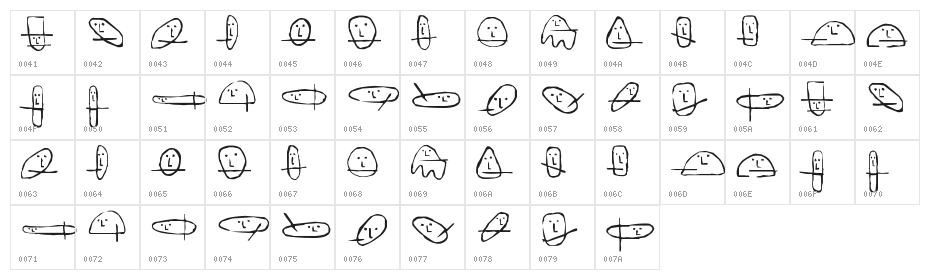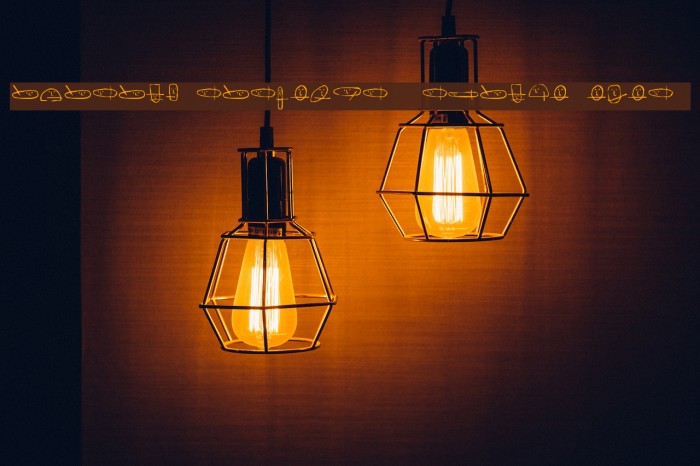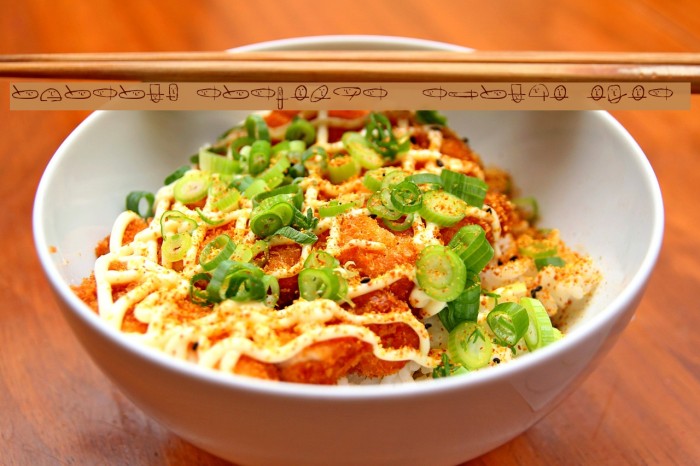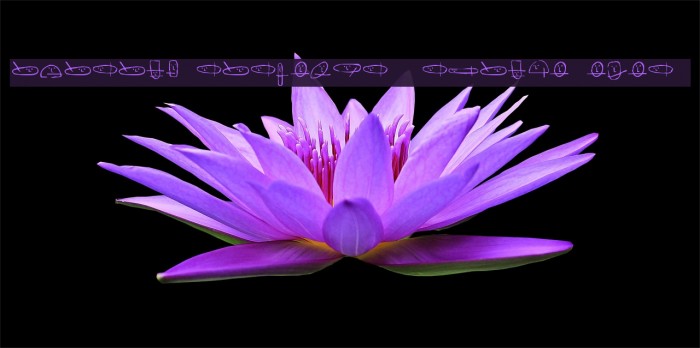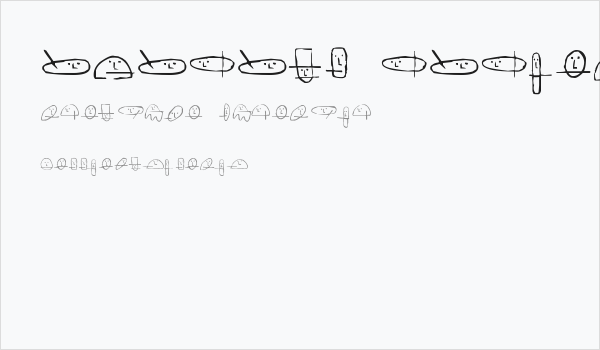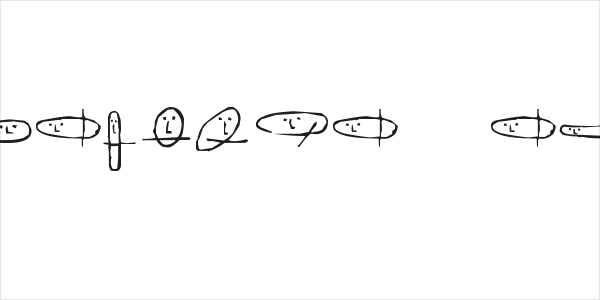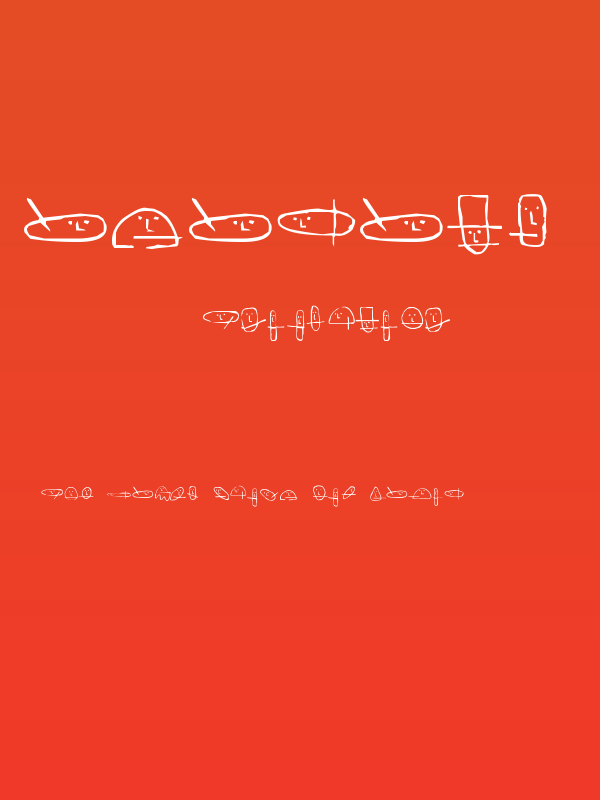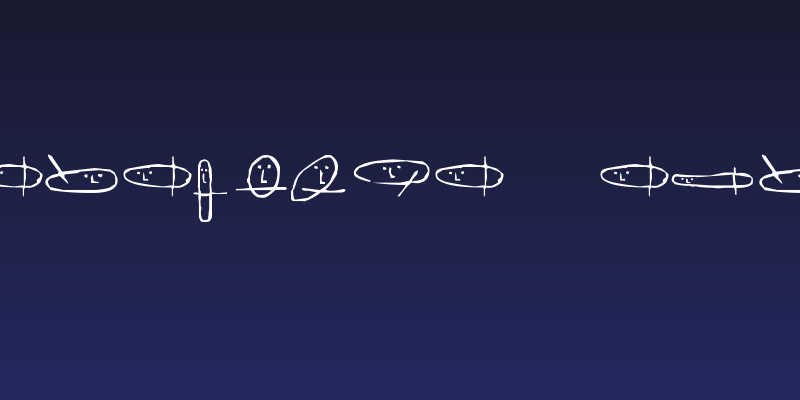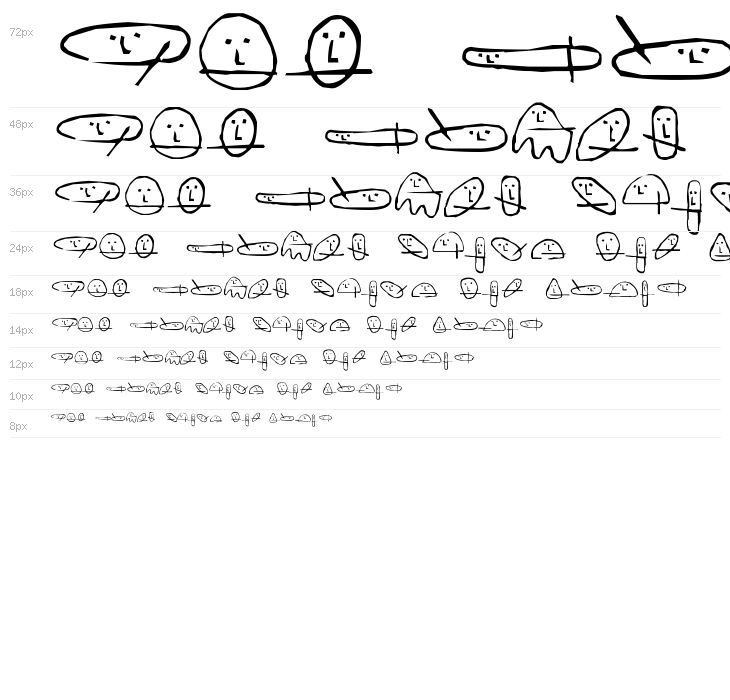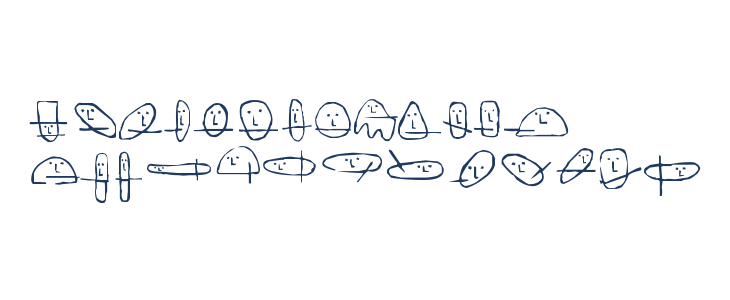
unusual suspects [ square eyes ] Font
unusual suspects [ square eyes ] Description
This font features a playful and whimsical design, with each character resembling a unique face or figure. The characters are hand-drawn with a casual, sketch-like quality, giving them a distinctive and humorous appearance. The lines are uneven and organic, adding to the charm and individuality of each letter. The font is highly decorative, with each character having its own personality, making it ideal for creative and fun projects. The overall style is informal and artistic, perfect for designs that require a touch of humor and creativity.
| Overall Style | Whimsical and Artistic |
| Use Case | Logos, Posters, Creative Projects |
| Proposed Projects | Ideal for children's books, comic strips, playful branding, and creative posters. |